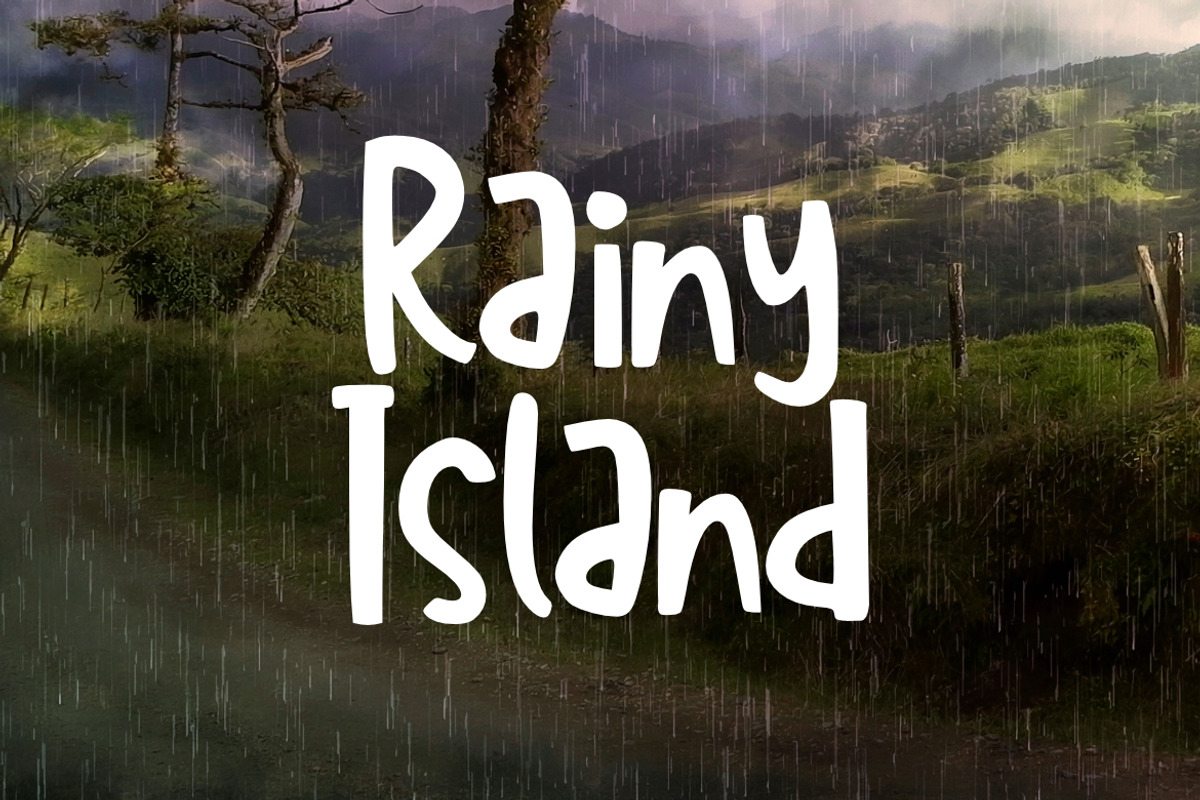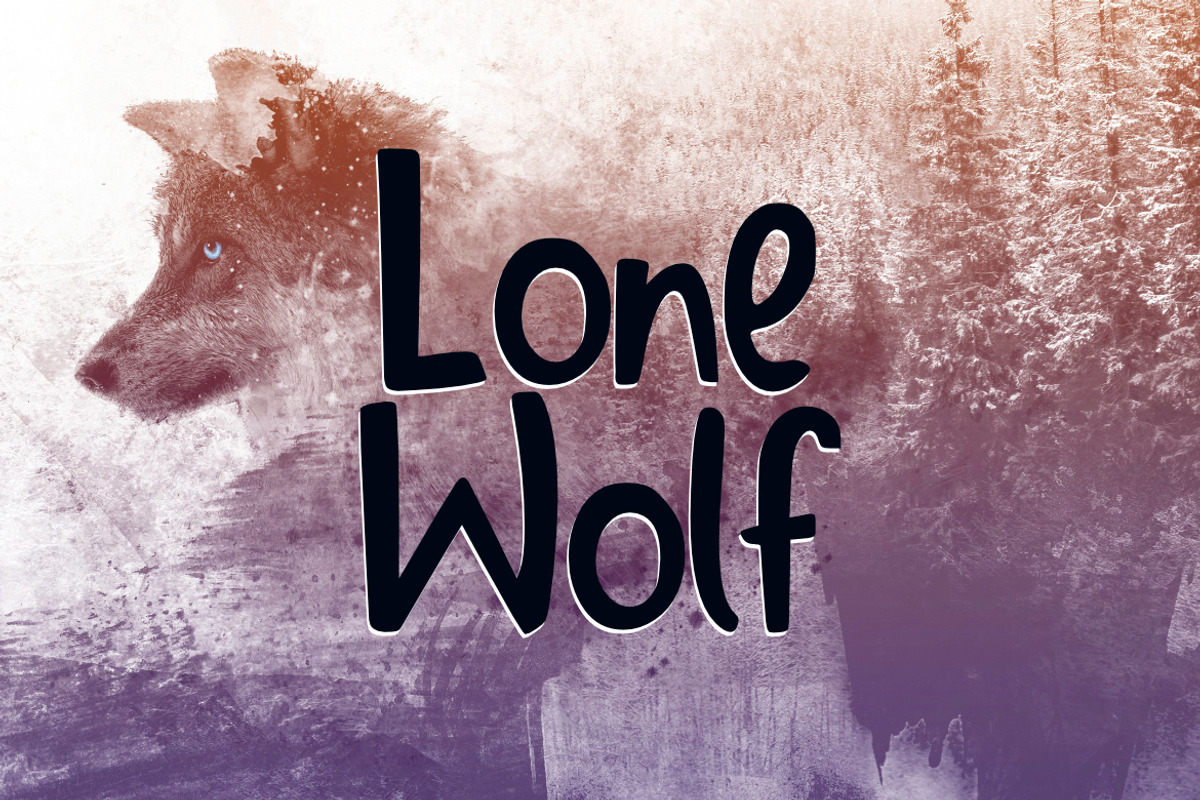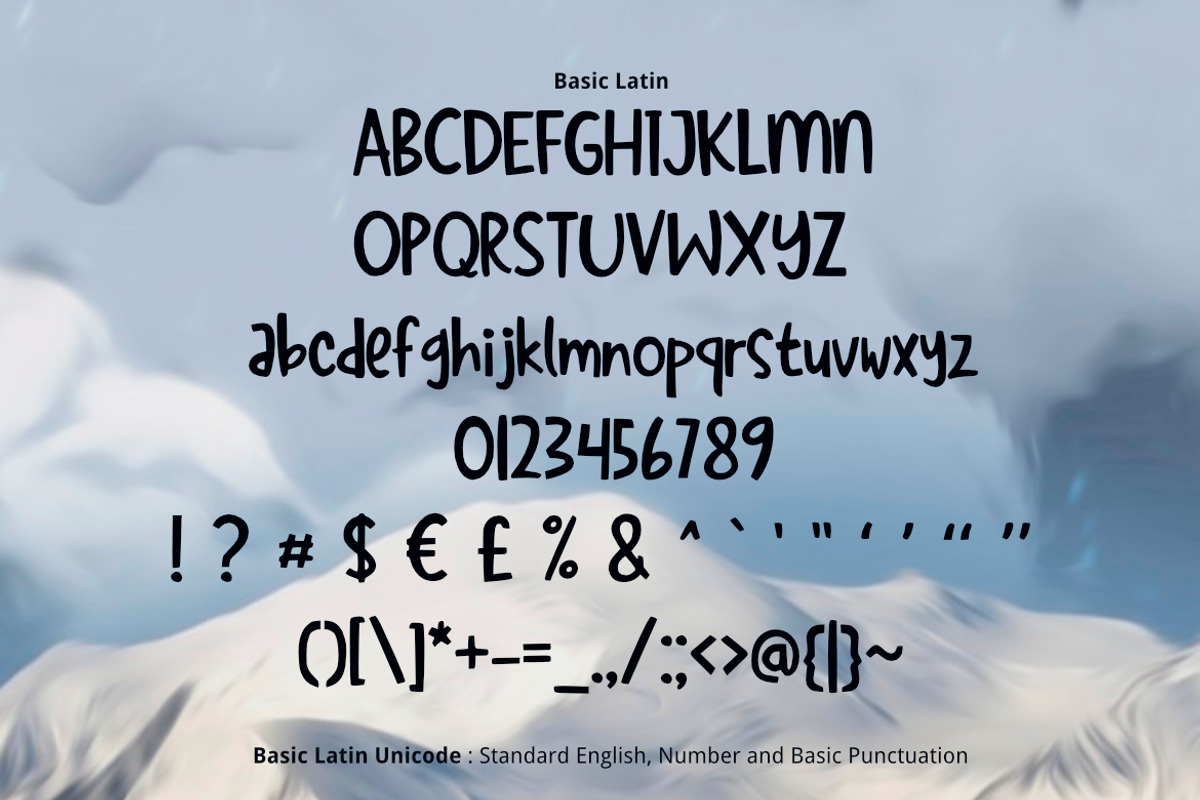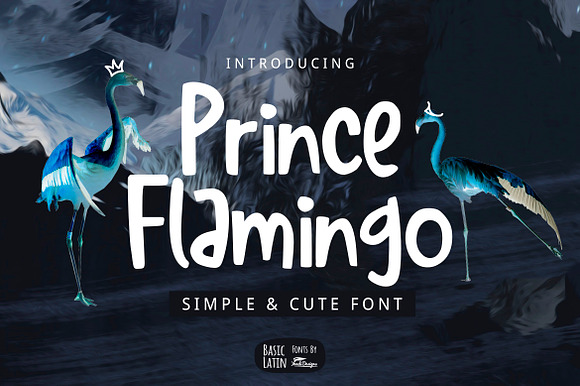
Prince Flamingo Font
Prince Flamingo is lovely , cute, simple, playful, multipurpose handwritten font , suitable for many project children book, quotes, logo , heading , title etc. Summer and holiday font.
Prince Flamingo Font by YandiDesigns fits naturally into Branding, posters, packaging, typography.